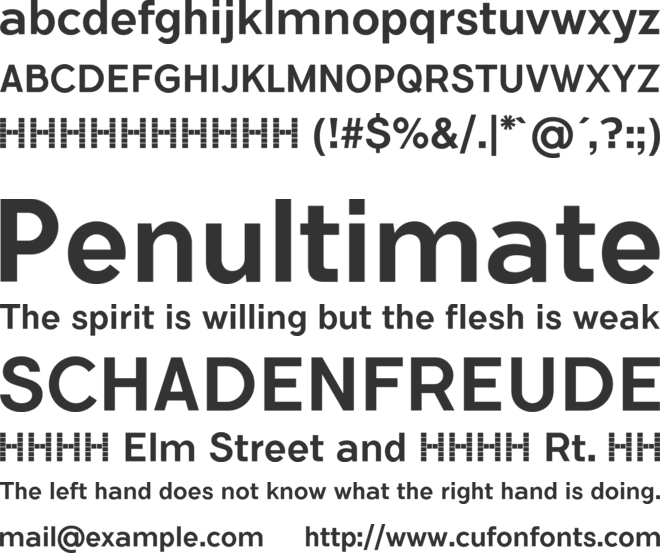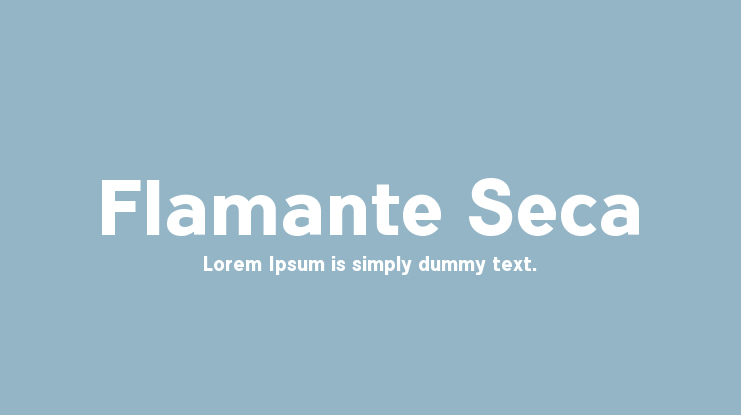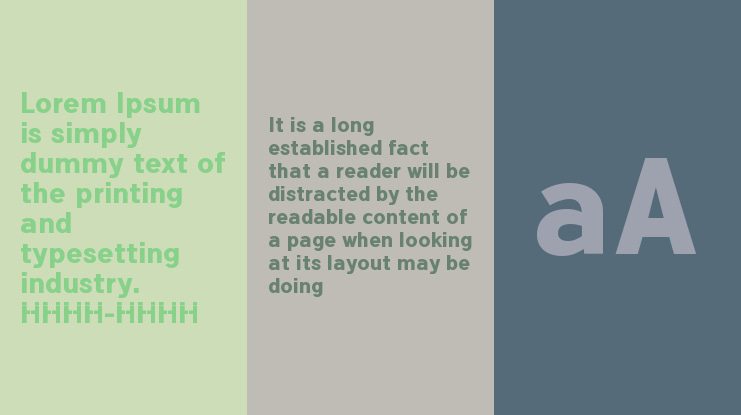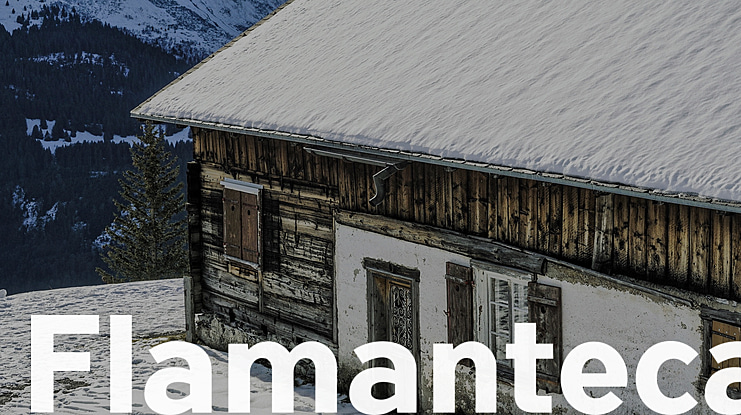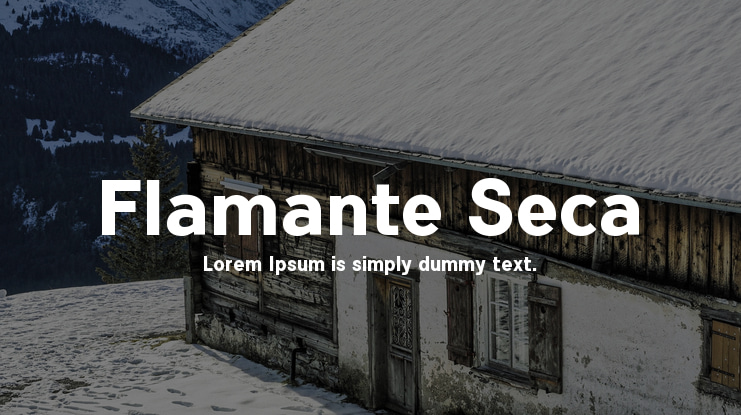
Flamante Seca Font Family
Fernando Haro
Neo-grotesque style fonts built on a 4 × 6 building grid formed with 144 x 119 units (Regular version), two digits taken from the fibonacci and Perrin sequences, these measures define the width and height of the vertical and horizontal antlers and the overall proportion of the font. The metrics and kerning have been carefully set up for fluent reading in paragraph texts.